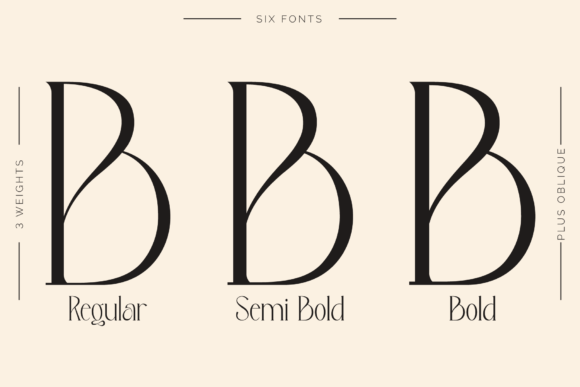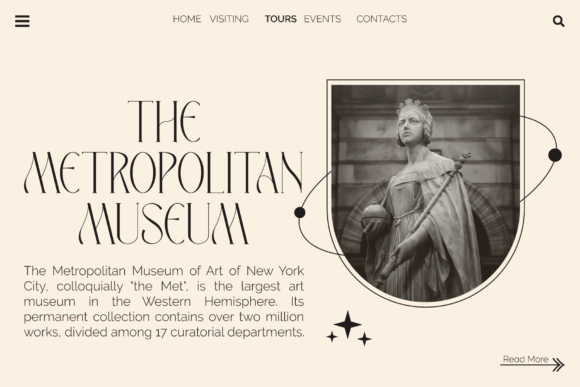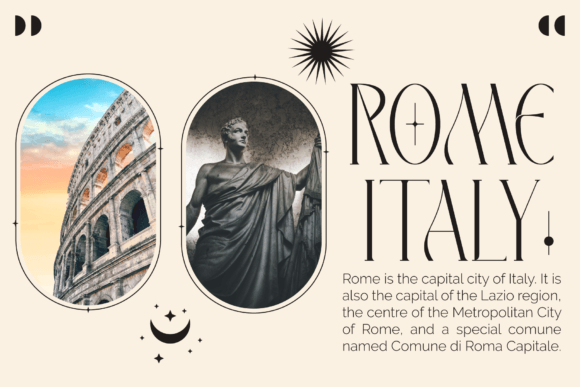
Introduction to Peskia Font
Peskia is a modern font with lots of elegance and originality.
The tall and slim nature of the Peskia typeface gives it a sophisticated yet contemporary nostalgic look .